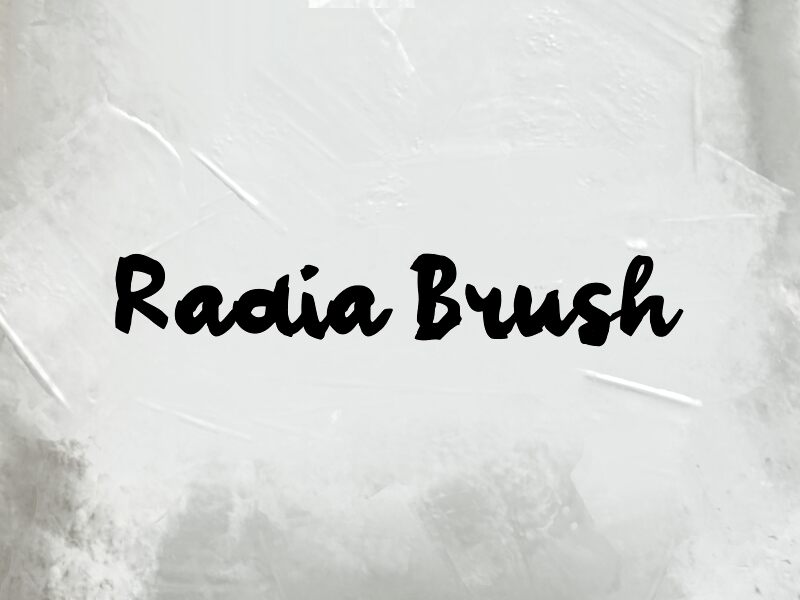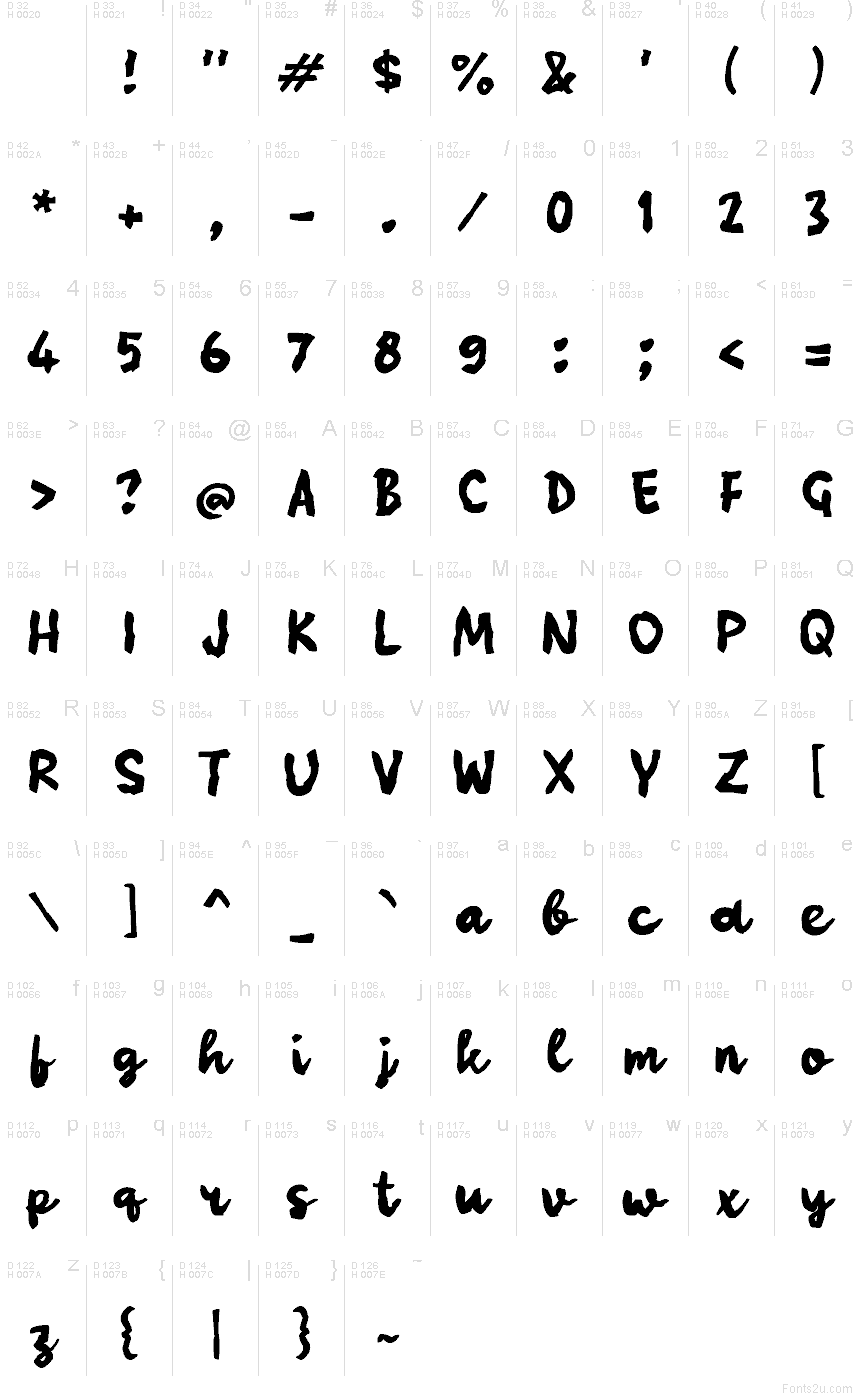
Radia Brush
Radia Brush font by wepfont.com is a free brush font that feels like it was pulled straight from a thick marker across smooth paper. The strokes are bold yet slightly irregular, with inky edges that give every word a relaxed, handwritten warmth. Letters connect with an easy rhythm, so lines of text feel like quick, confident signatures rather than stiff digital shapes, making this typeface a strong choice whenever you want personality without chaos.
Using Radia Brush in your work, you get a friendly, informal voice that shines on logos, packaging, social media graphics, posters, invitations, and merch designs. This free font holds up well at larger sizes where its textured curves and energetic flow can really show. Pair it with a clean geometric sans for body copy, and let Radia Brush handle short headlines, product names, and bold overlays that need to feel human and expressive.